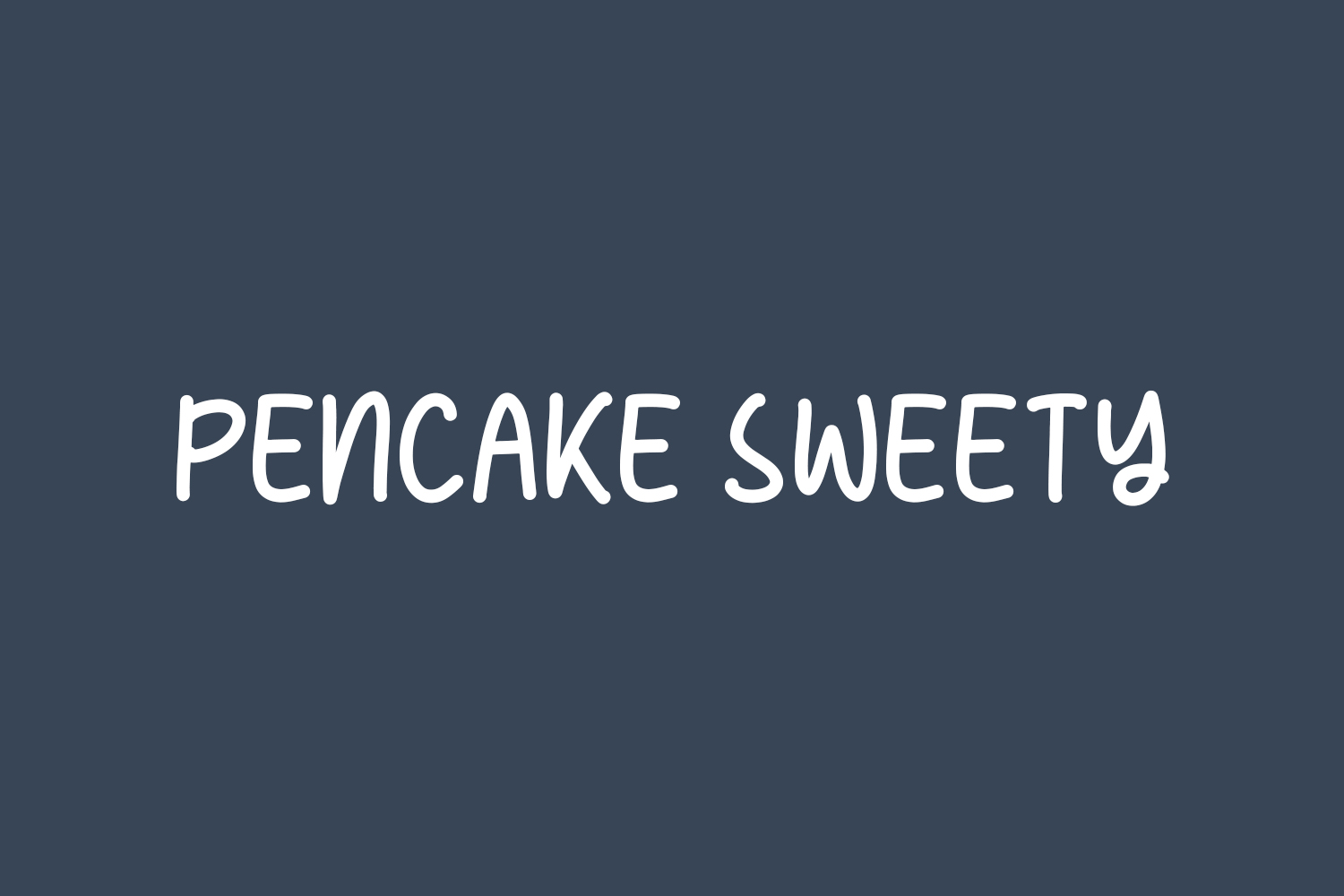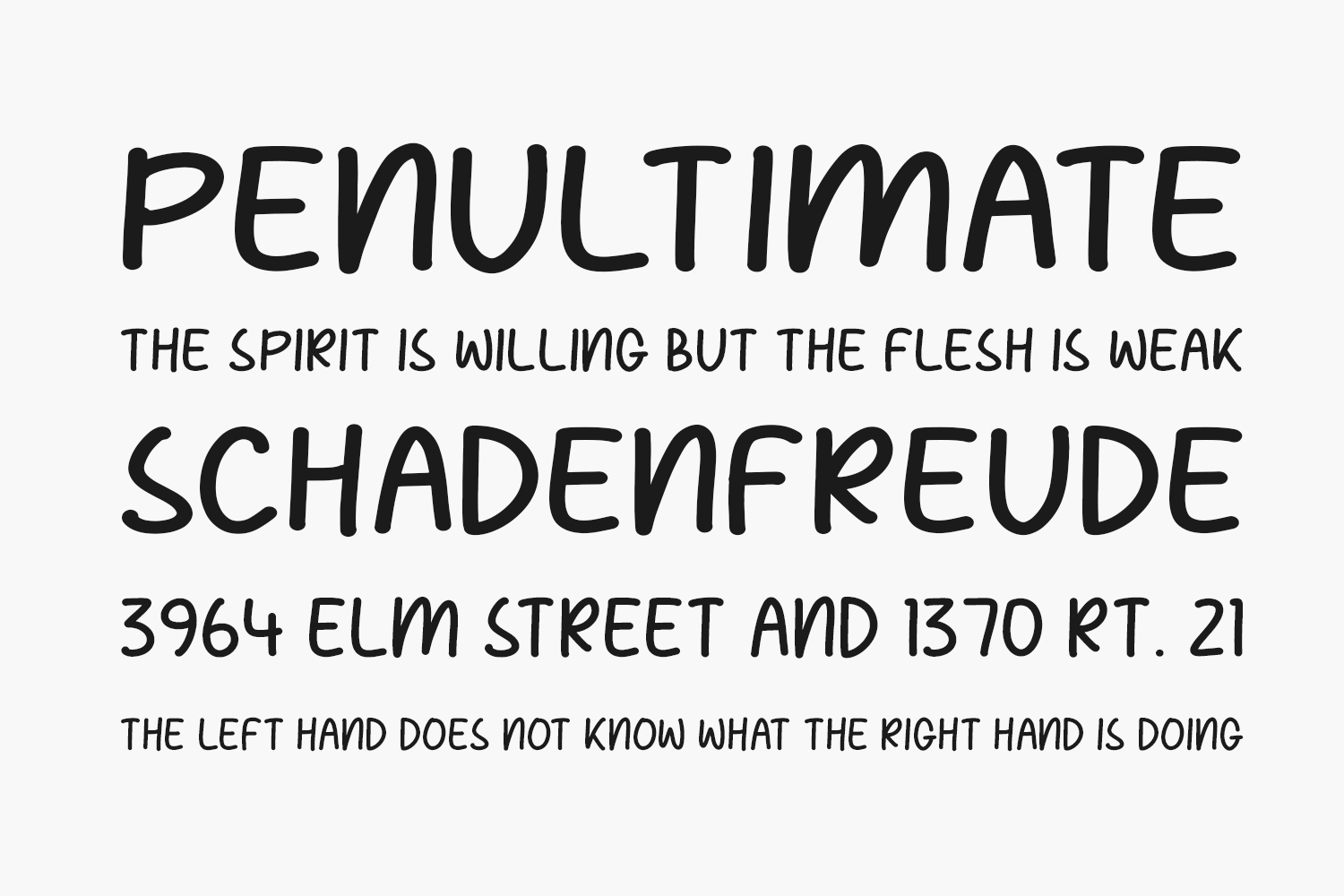
Introducing Pencake Sweety Free Font, a charming handwritten font perfect for a wide array of projects. Whether it’s logos, branding, homeware designs, product packaging, or apparel like T-shirts, this quirky font adds a unique touch. From quotes to posters, from greeting cards to special events, Pencake Sweety brings a delightful flair to all your creative endeavors. Download the font for free if you need it for personal use or purchase the full version for commercial use.
Designed by Perspectype Studio